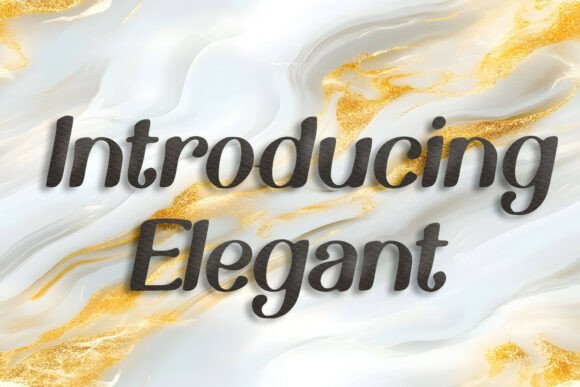
Introduction to Elegant Font
Introducing the Elegant font, the perfect blend of sophistication and versatility to elevate your designs.
Whether youโre crafting shirts or designing stickers and brand logos, Elegant is ready to add that distinctive edge Itโs also a great choice for magazine layouts, SVG files, heartfelt greeting cards or intricate Cricut projects.
Key Features of Elegant Font
Why Choose Elegant Font?
Elegant Font offers exceptional quality and versatility, making it a valuable addition to your design toolkit. Whether you’re creating for personal projects or commercial use, Elegant Font delivers professional results.